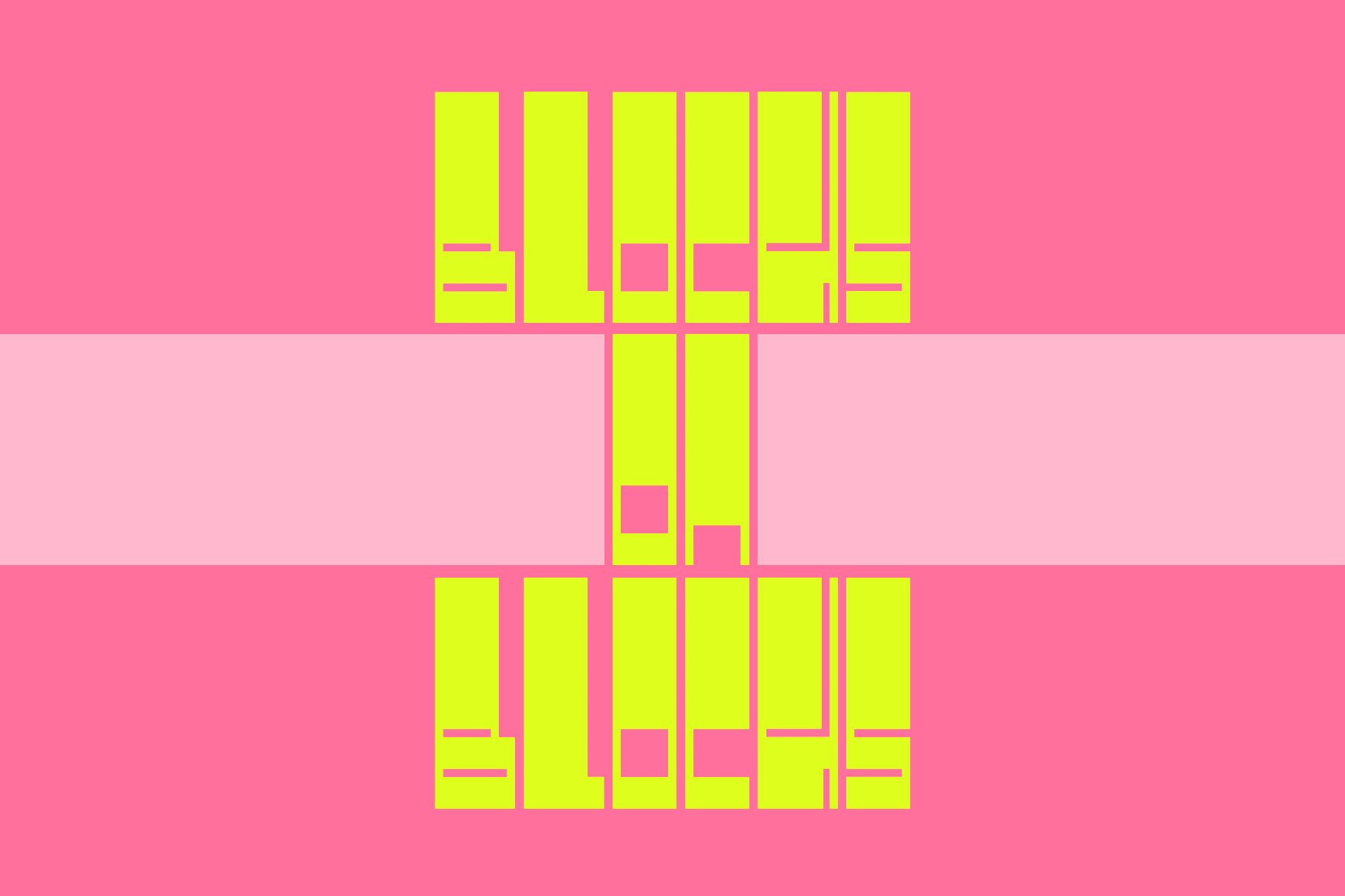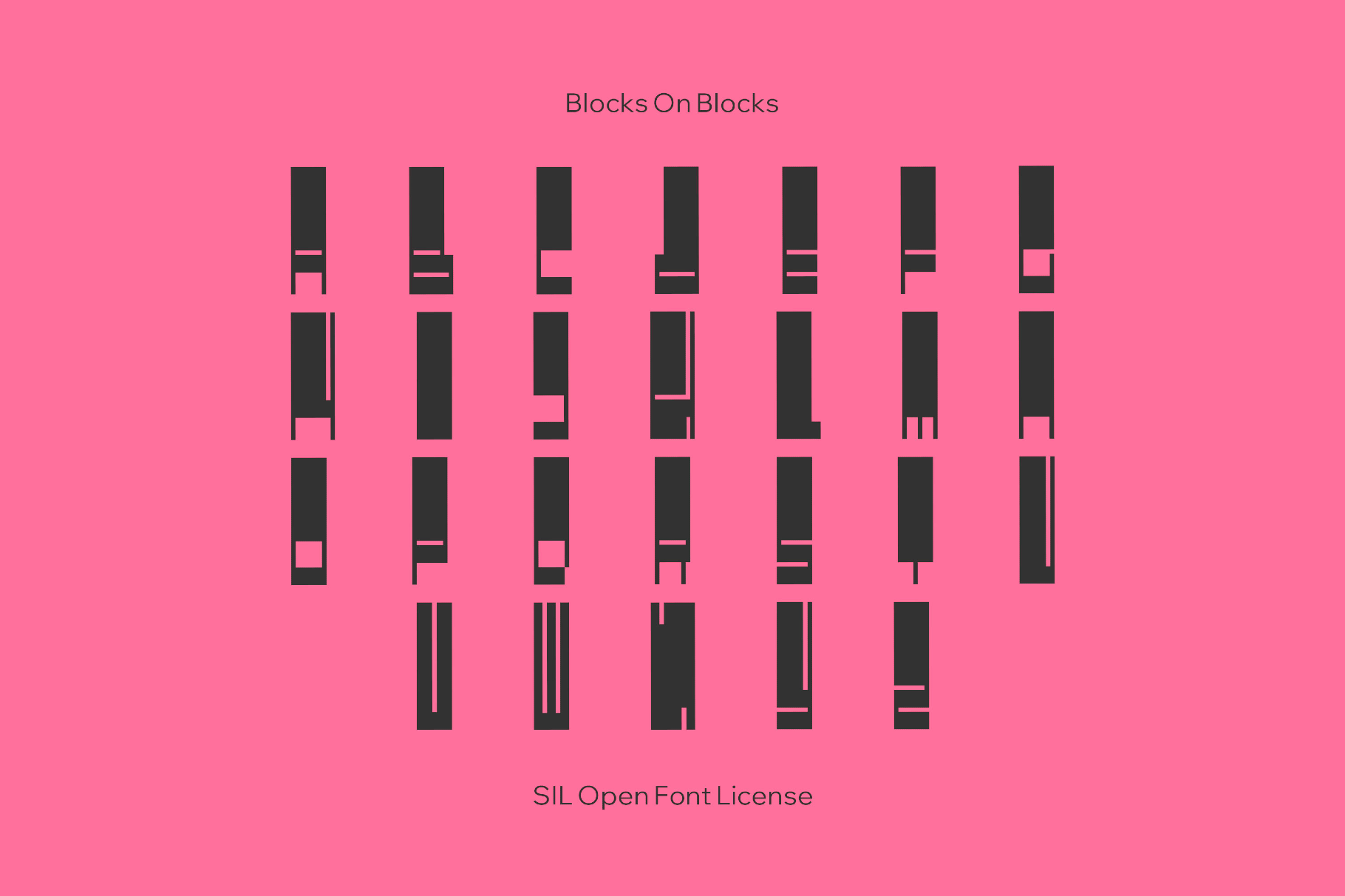
Blocks On Blocks Font
Blocks On Blocks is a stacked, cube-built font with chunky overlaps and hard edges of graffiti lettering, LEGO geometry, and early-’90s street posters. It’s ideal for bold poster headlines, streetwear branding, sticker graphics, event flyers, wordmarks, record artwork, album art, packaging, and social titles.
- Uppercase letters for headlines, logos, and short statements
- Punctuation and core symbols.